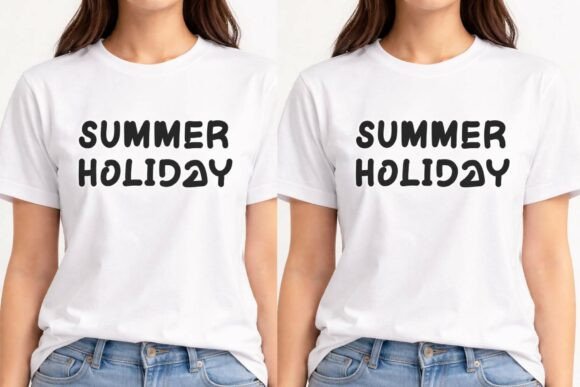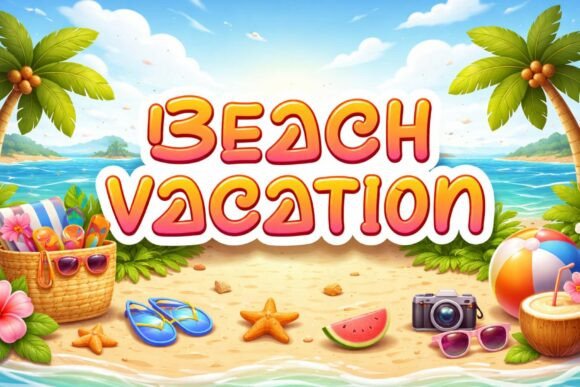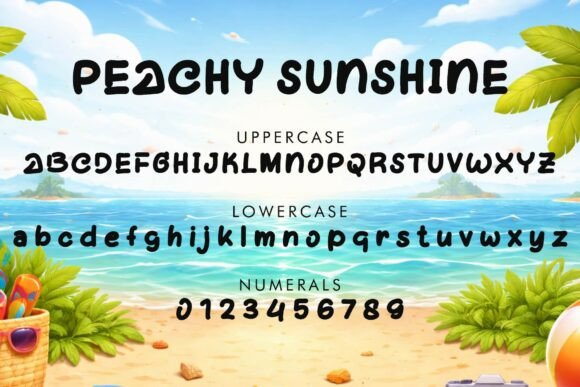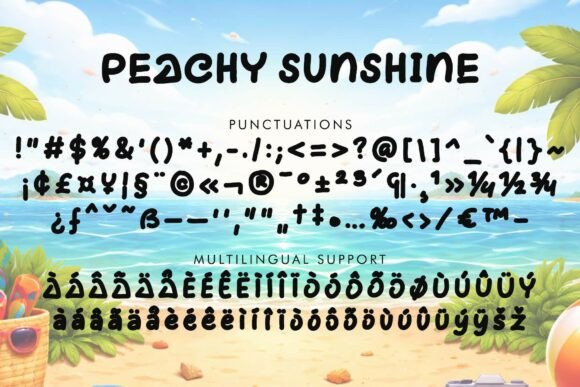
Introduction to Peachy Sunshine Font
Remember the thrill of stumbling upon the perfect font for your creative project? The moment when everything falls into place, and your design comes alive? For many designers, this moment is a highlight of their day. And, we’re here to share the secret to unlocking that excitement – the Peachy Sunshine Font.
This delightful display font is more than just a pretty face; it’s a valuable resource for designers looking to add a touch of whimsy and charm to their work. With its high-quality design, transparent background, and free download option, it’s an ideal choice for anyone seeking a unique and eye-catching font for their branding, print materials, or digital projects.
Key Features of Peachy Sunshine Font
- High-quality, hand-drawn design perfect for creative projects and personal use.
- Comes in a transparent background, allowing for easy layering and customization.
- Includes 6 different font styles, each with its own unique characteristics and flair.
- Features a high-resolution design, suitable for use in print and digital applications at 300 DPI.
- Perfect for adding a touch of whimsy and personality to any design project, from invitations to social media graphics.
Honest Review: Peachy Sunshine Font
As a designer, I’ve had the pleasure of working with numerous fonts, but the Peachy Sunshine Font is one that truly stands out. The high quality of this font is undeniable, with its unique blend of elegance and playfulness making it perfect for creative projects.
One of the standout features of the Peachy Sunshine Font is its transparent background, which allows for seamless integration with any design. The free download option is also a major plus, making it an excellent resource for designers on a budget.
- Unique and elegant design
- May not be suitable for formal or professional designs
- Limited font styles available
Overall, the Peachy Sunshine Font is a valuable addition to any designer’s toolkit. Its high quality and versatility make it an excellent choice for a wide range of creative projects. While it may have some limitations, the benefits far outweigh the drawbacks.
How to Use Peachy Sunshine Font
To get the most out of the Peachy Sunshine Font, experiment with different font sizes, colors, and combinations. This font pairs well with bright and pastel colors, creating a unique and eye-catching design. Additionally, use the font with transparent background elements to create a beautiful and visually appealing design.
The Peachy Sunshine Font is commonly used in creative projects such as logo design, typography-based art, and presentation design. This font is also great for use in social media graphics, blog posts, and other online content.